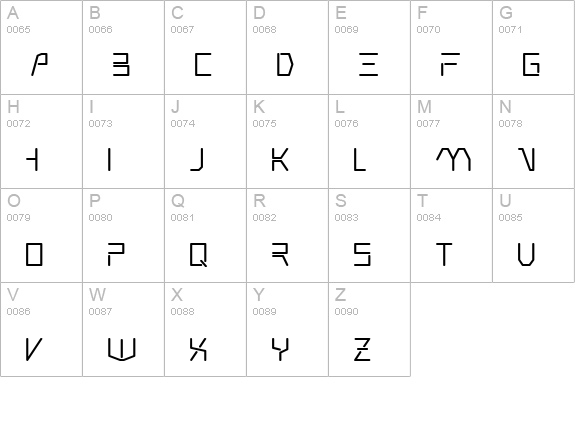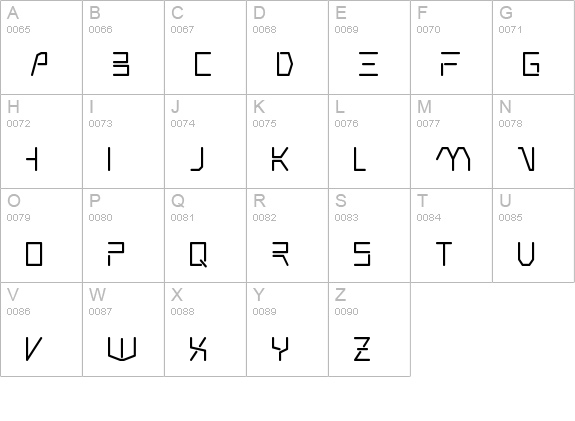
Aeroflot Font Details
Aeroflot font is a stunning typeface that exudes elegance and sophistication. With its sleek lines and modern design, Aeroflot is perfect for adding a touch of style to any project. This versatile font is suitable for a wide range of applications, from branding to editorial design. Its clean and timeless appearance makes it a popular choice among designers looking to make a bold statement. The best part? Aeroflot font is available for free download at FontsMarket.com. This means you can easily access this beautiful typeface and use it in your projects without any cost. Whether you're working on a website, poster, or logo, Aeroflot font will elevate your design and give it a professional edge. Don't miss out on this fantastic opportunity to enhance your work with the exquisite Aeroflot font - download it for free today!